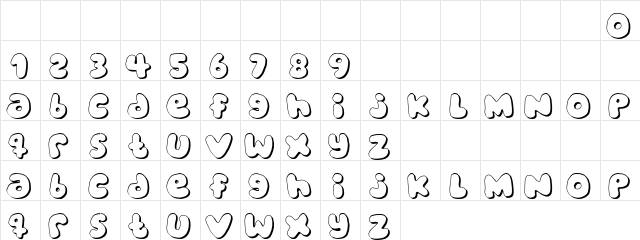
Floated Bubbles Regular
Design Context for Floated Bubbles Typeface
Floated Bubbles has an approachable, lighthearted character — its loose, expressive forms are well-suited to children's content, casual branding, and fun-first design.
Great for children's books, toy packaging, family event branding, and casual consumer-facing design.
Font Pairing: Pairs well with a rounded or humanist sans for body copy, maintaining the friendly tone without relying on Floated Bubbles to carry extended reading.
Pro Tip: Avoid using Floated Bubbles for long passages of text — it works best for headlines, labels, and short calls to action.